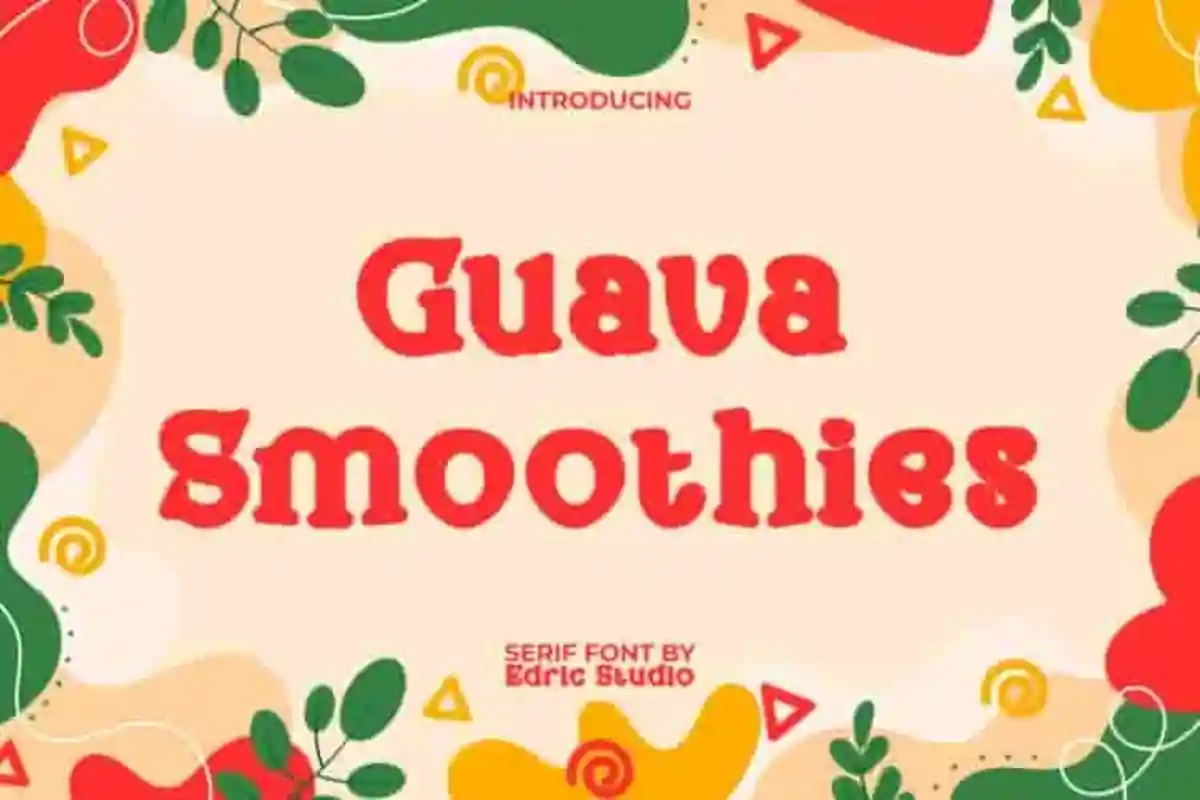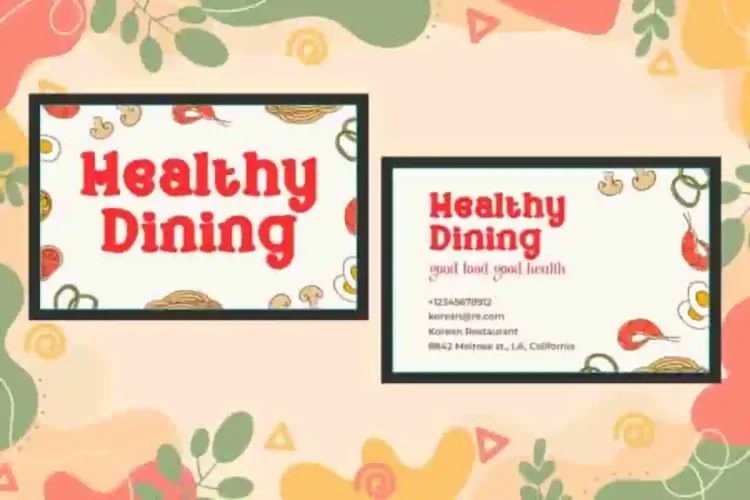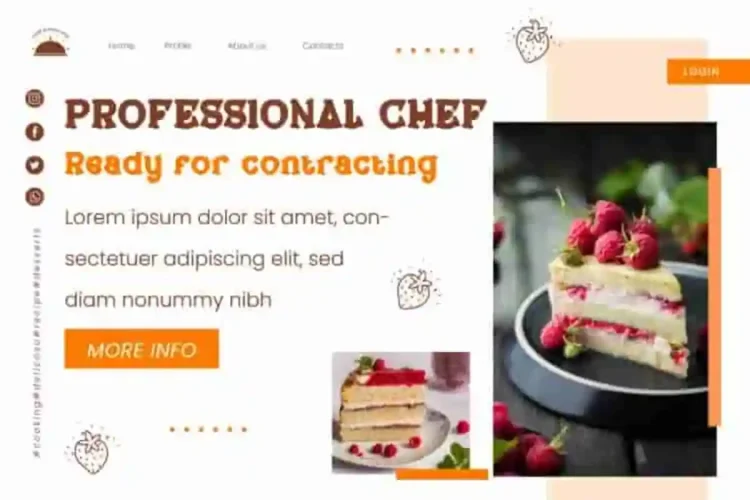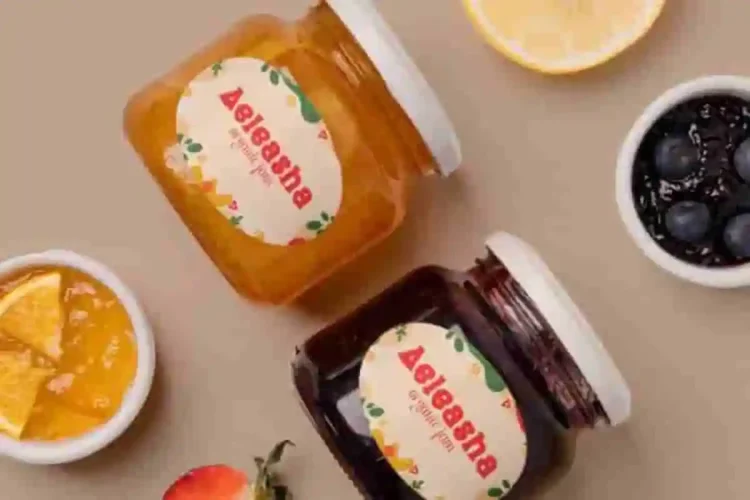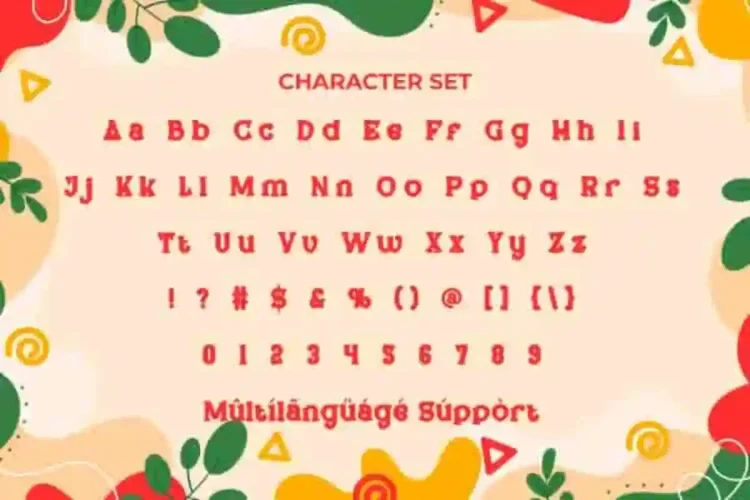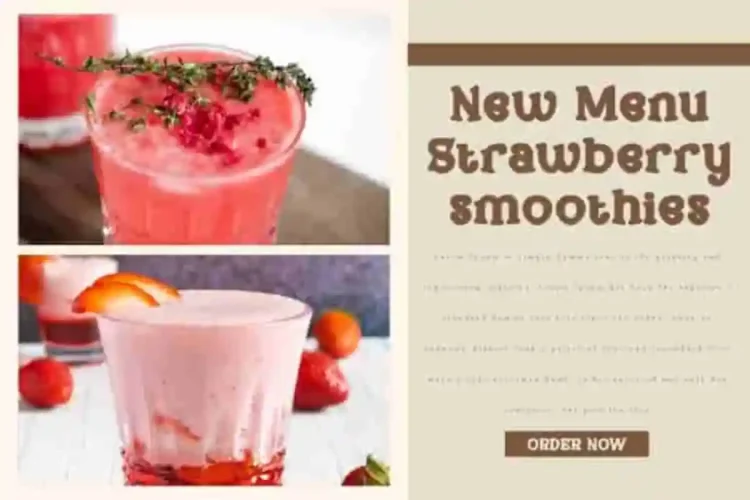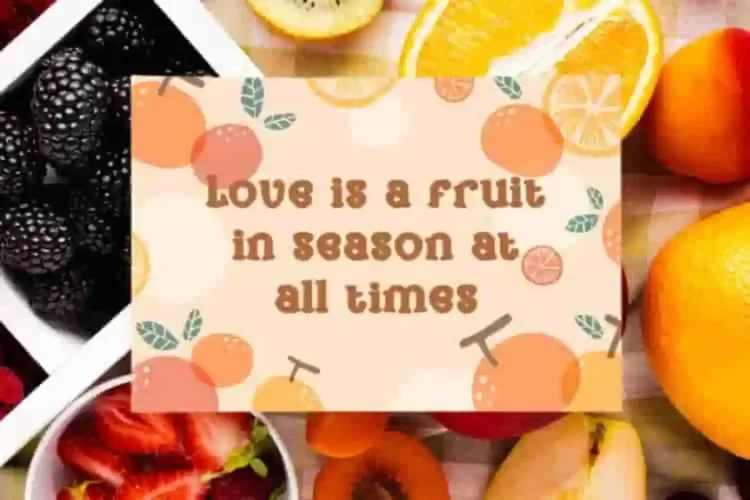
Guava Smoothies Font is a fun cartoon font that brings a playful looks. This font will add color to your work, so it is suitable for designs such as brochure, cover, greeting cards, headers, label design, logos, menu, pamphlet, poster, quotes, stationery, and others.
Guava Smoothies Font comes with a full set of Uppercase and Lowercase letters, Number, Punctuation, and Symbol. The initial character is built with a bold and cheerful personality. Inspired by cartoon writing ready to bring you fun. Perfectly designed for brand of sweet product, cafeteria, patissier, restaurant, and etc. This font adds expressiveness with joyful and refreshing harmony.